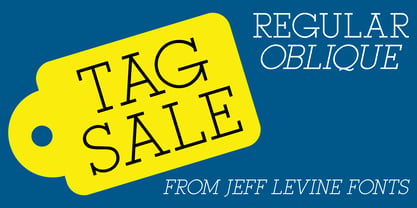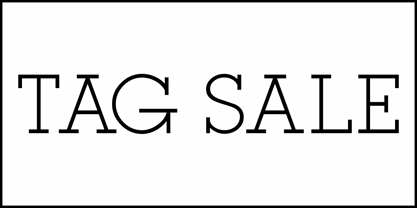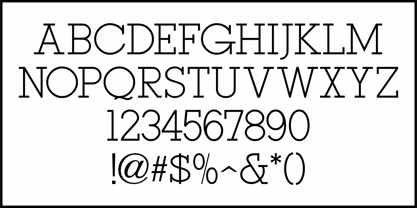
Tag Sale JNL
by Jeff Levine
Various sub-headlines and ad copy used in the Film Daily Year Book of Motion Pictures from 1946 were set in Stymie Light, an evergreen of slab serif metal type and of the same relative style group as Karnak, Rockwell and Beton.
An all-caps interpretation of this popular design, Tag Sale JNL is available in both regular and oblique versions.